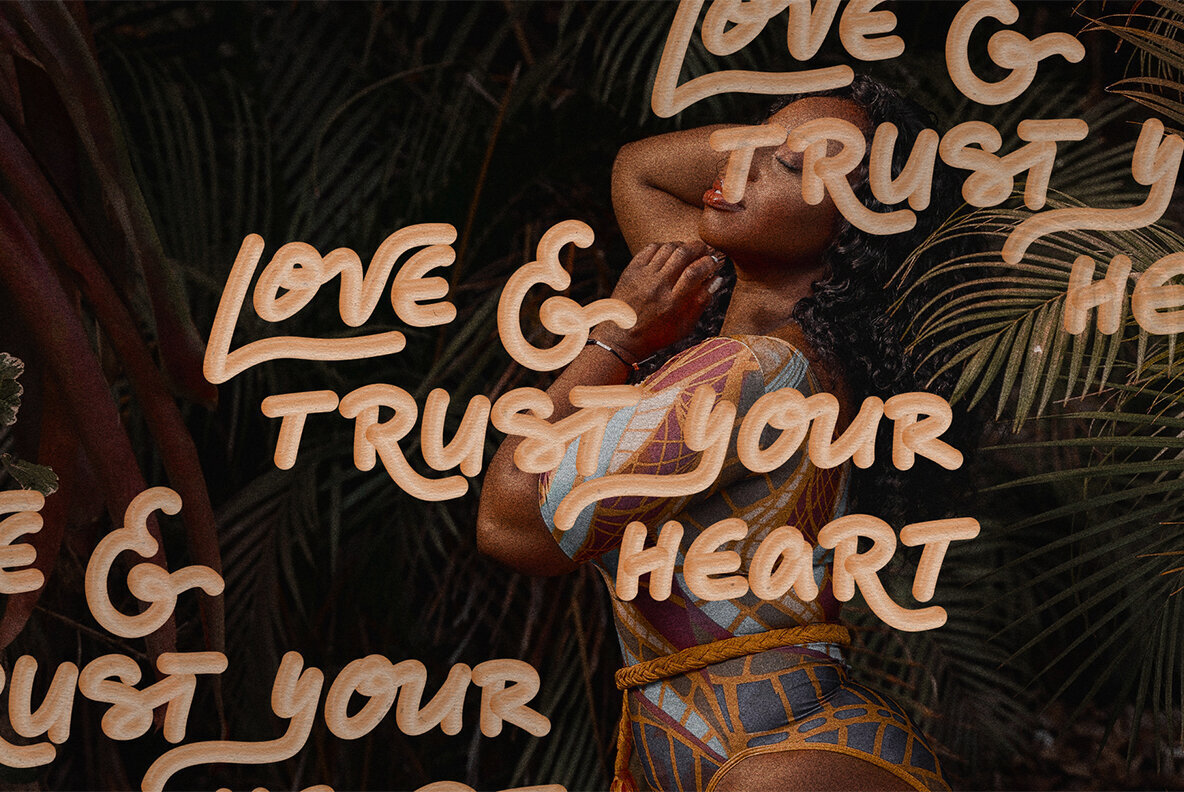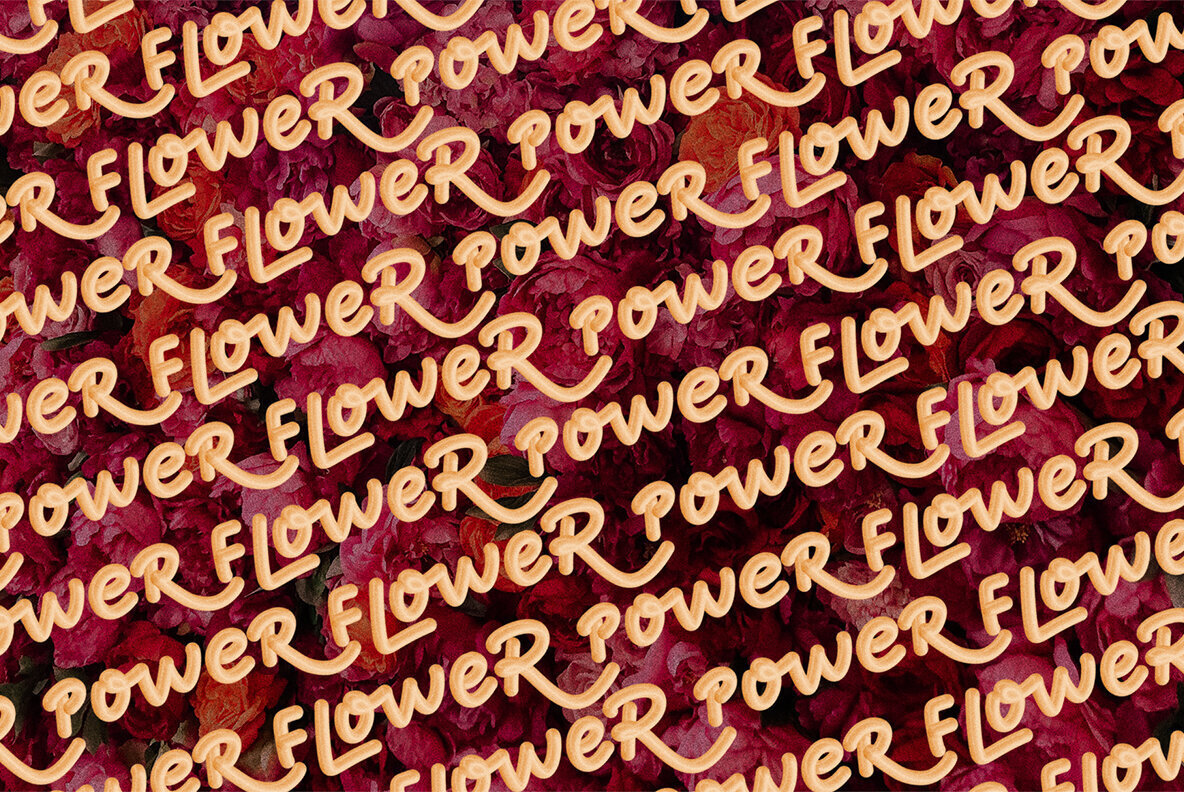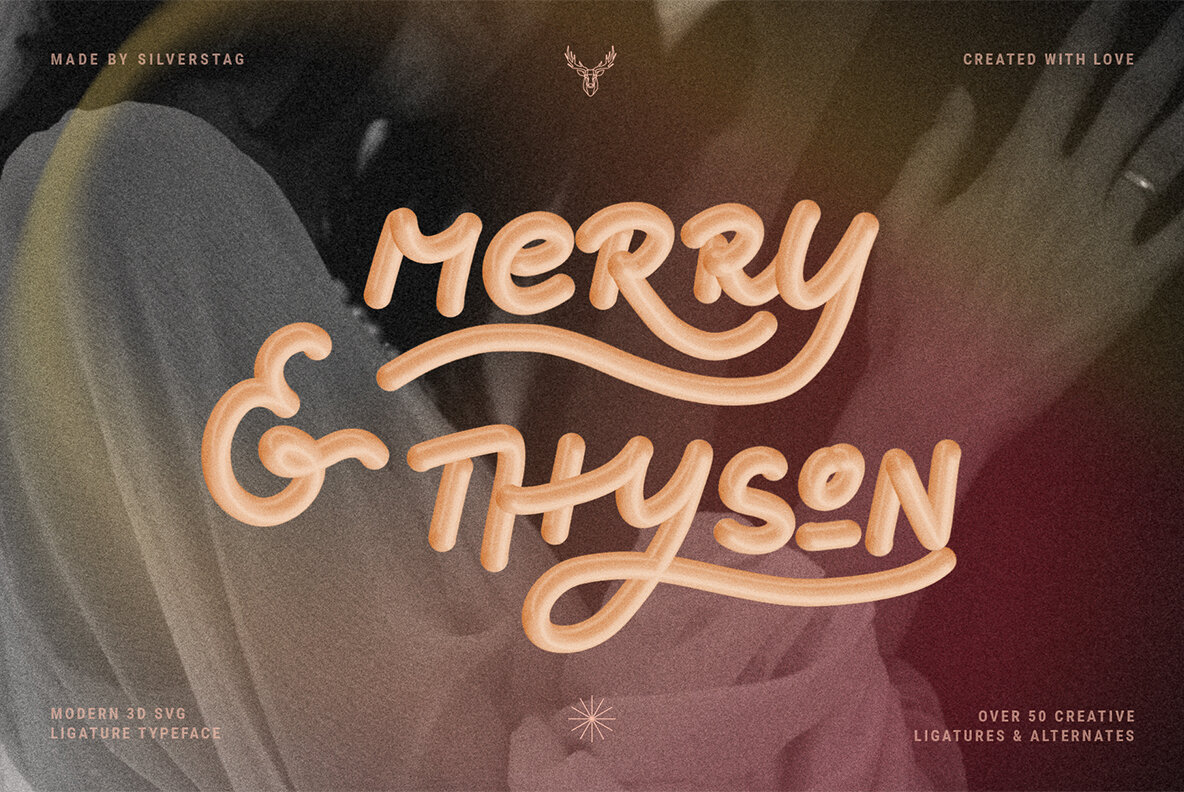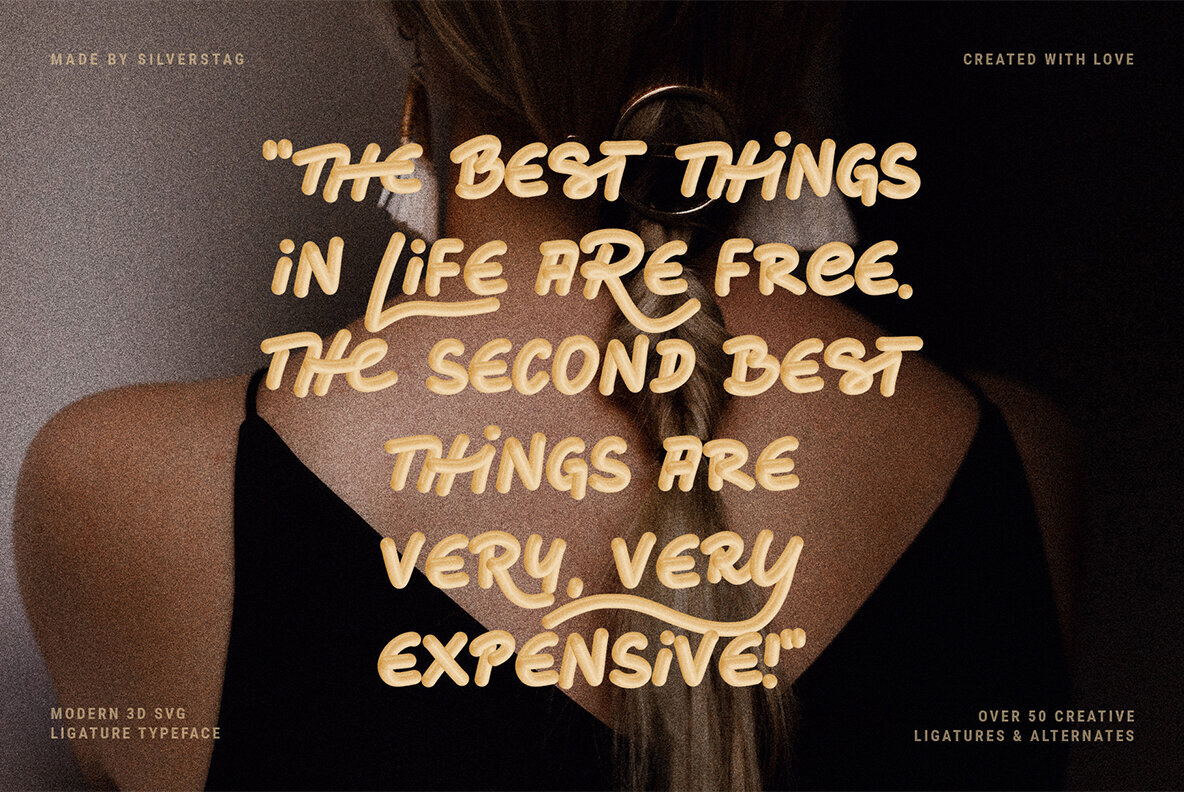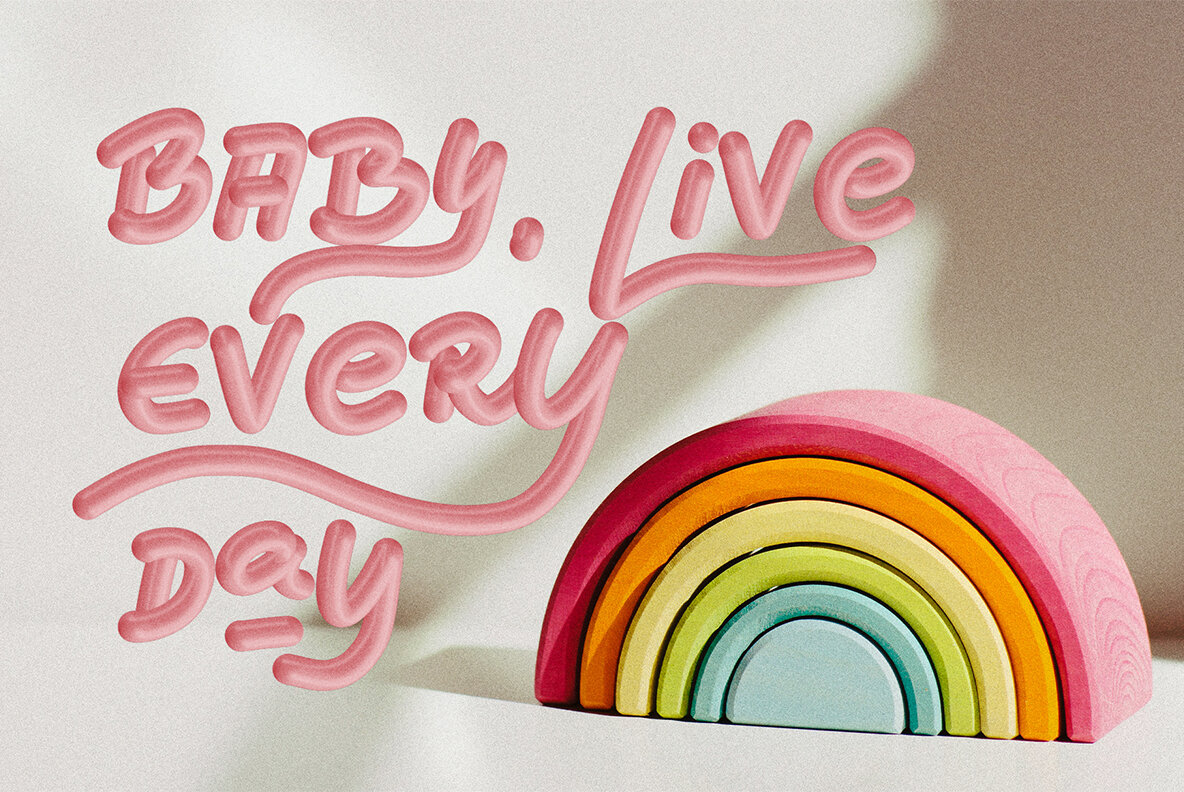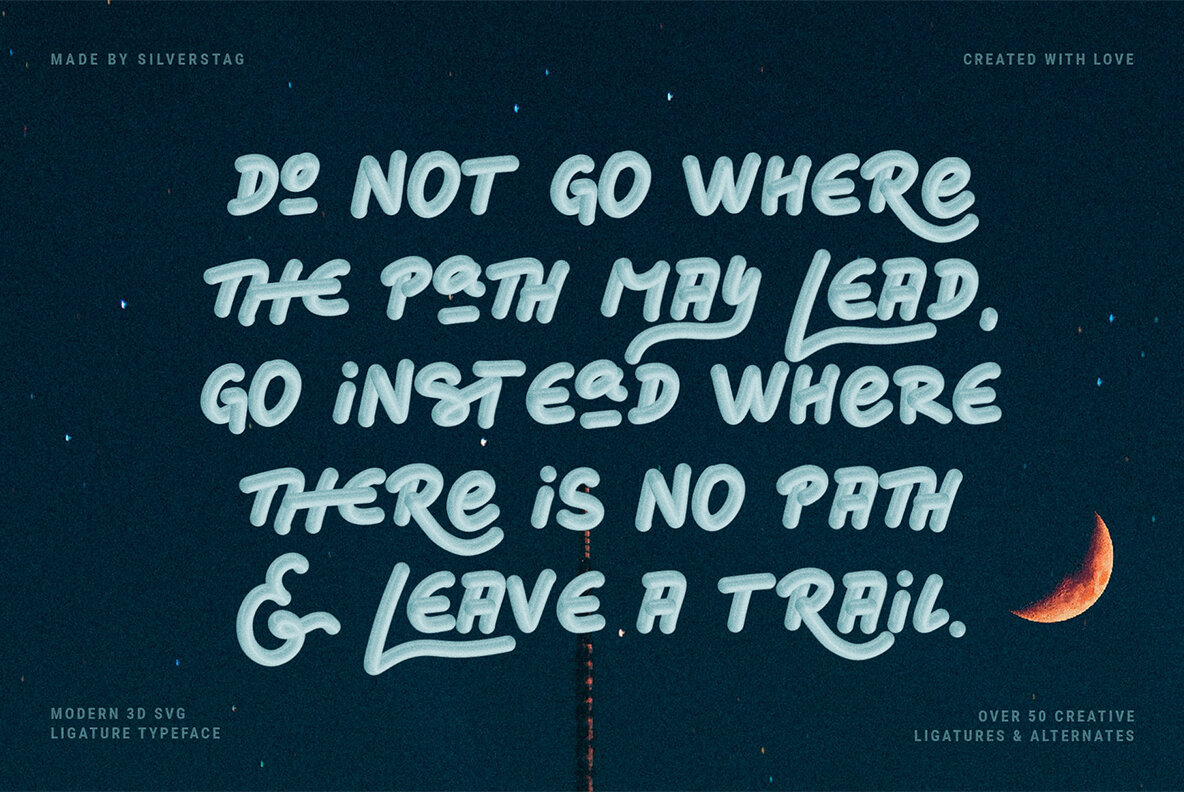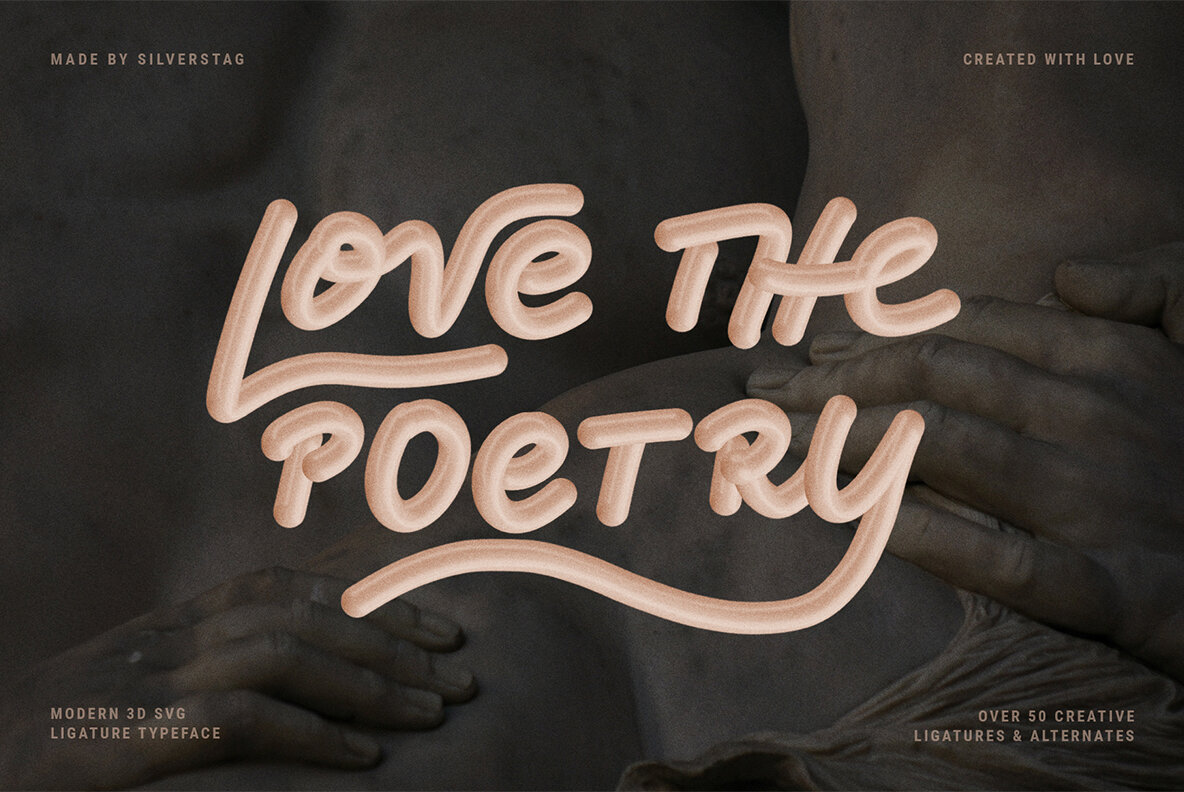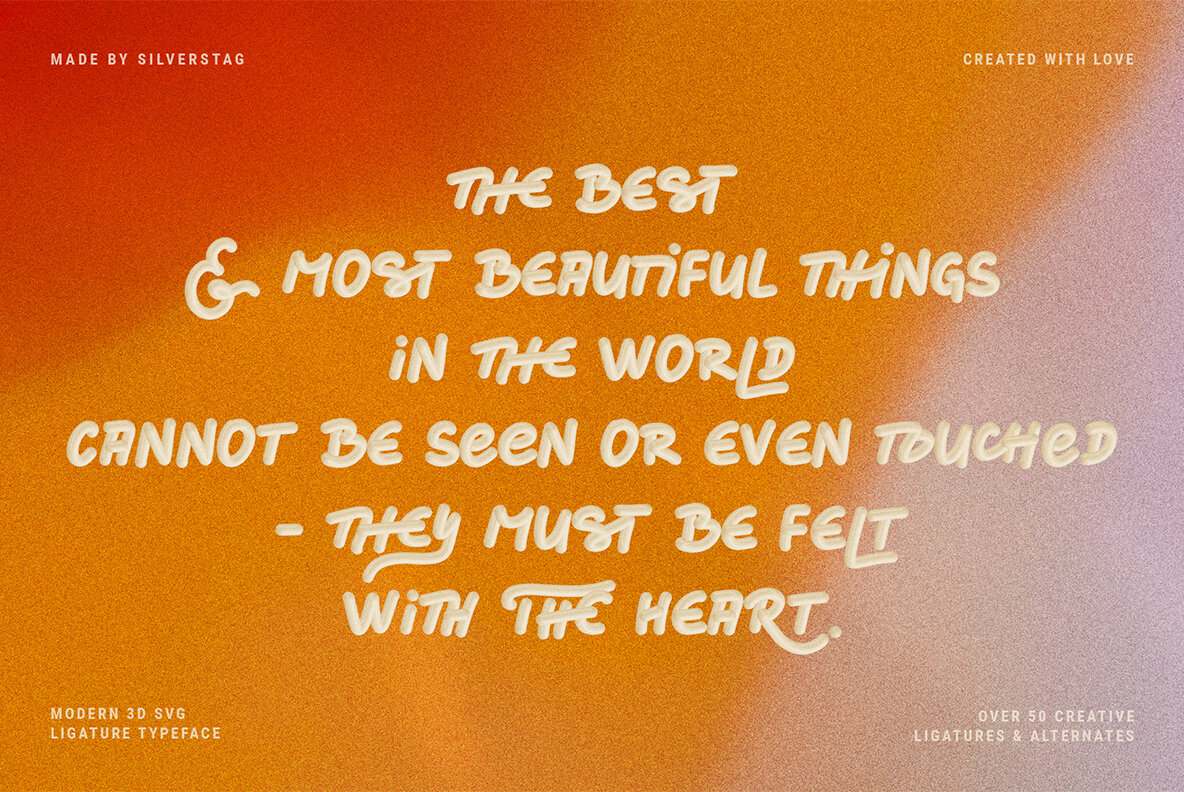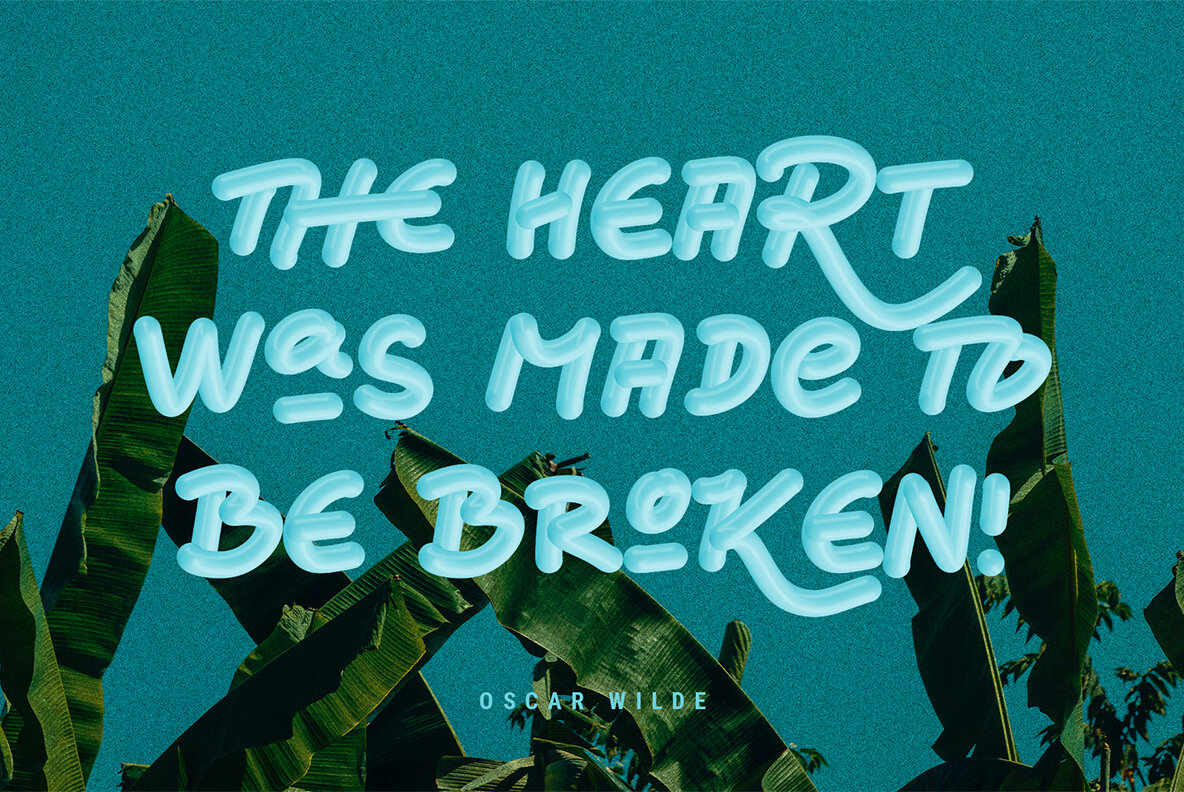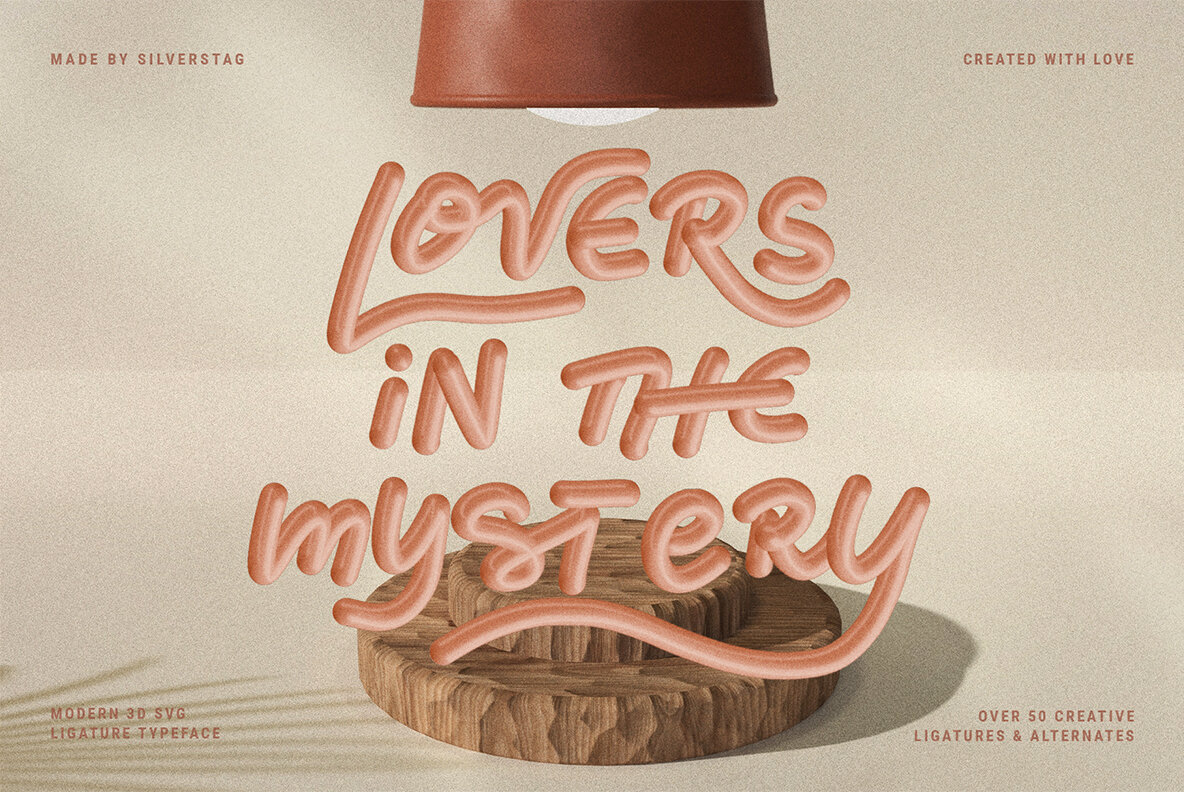
Cherry and Thyme SVG Font
Hey guys, we're already one month into spring, and spring for me usually means something new, different, doing the things I didn't do before, experimenting. So, here's something completely different and unique on the marketplace. A true handwritten 3D SVG font with over 50 unique ligatures and alternate letters!
- 50+ Ligatures and Alternates for a unique handwritten look and feel